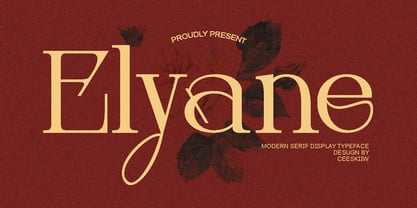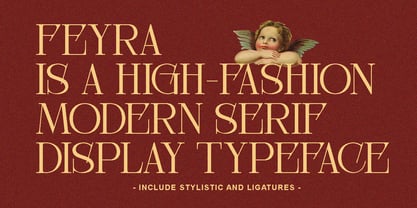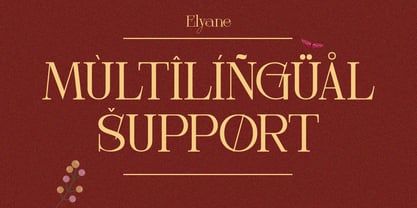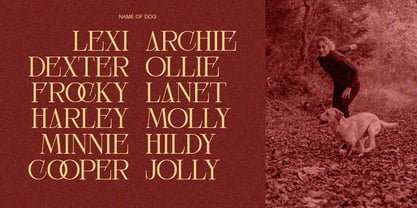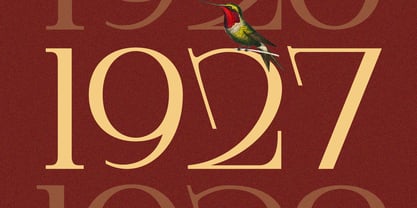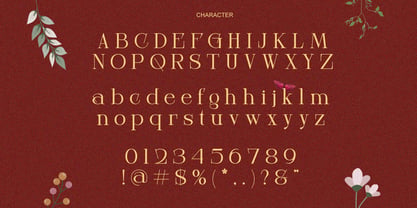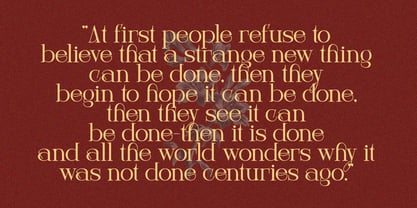
Elyane
by Ceeskiiw
The Elyane Font Family was designed by Cees Kiiw and published by Ceeskiiw. Elyane contains 1 styles. More about this family
Elyane is a sophisticated modern serif display font, graceful curves, and artistic decorative details. Designed for luxury branding, fashion editorials, beauty packaging, and premium visual identities.
This font is a high-fashion modern serif display typeface and elegant editorial styling. The letterforms feature dramatic contrast, refined curves, and artistic details that evoke luxury magazines, couture branding, and premium product packaging.
Designers: Cees Kiiw
Foundry: Ceeskiiw